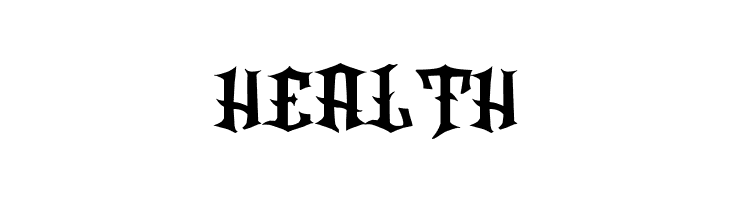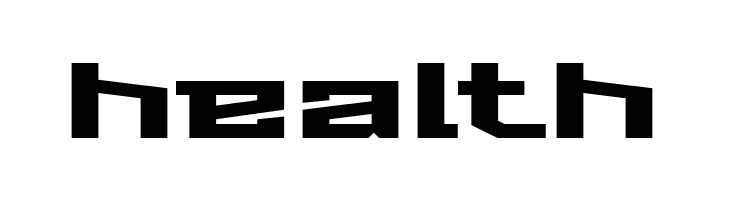
A bold, modern serif font with strong, angular serifs and cohesive design.
A bold, stencil-style font with geometric shapes and clear cutouts.
A bold serif font with strong strokes and high contrast, ideal for traditional and authoritative designs.
A bold, dramatic Blackletter-style font with intricate detailing.
A bold, impactful typeface with thick strokes and strong presence.
A bold, geometric font with a strong, industrial aesthetic.
A classic serif font with elegant strokes and refined details.
A classic serif font with elegant curves and a traditional appearance.